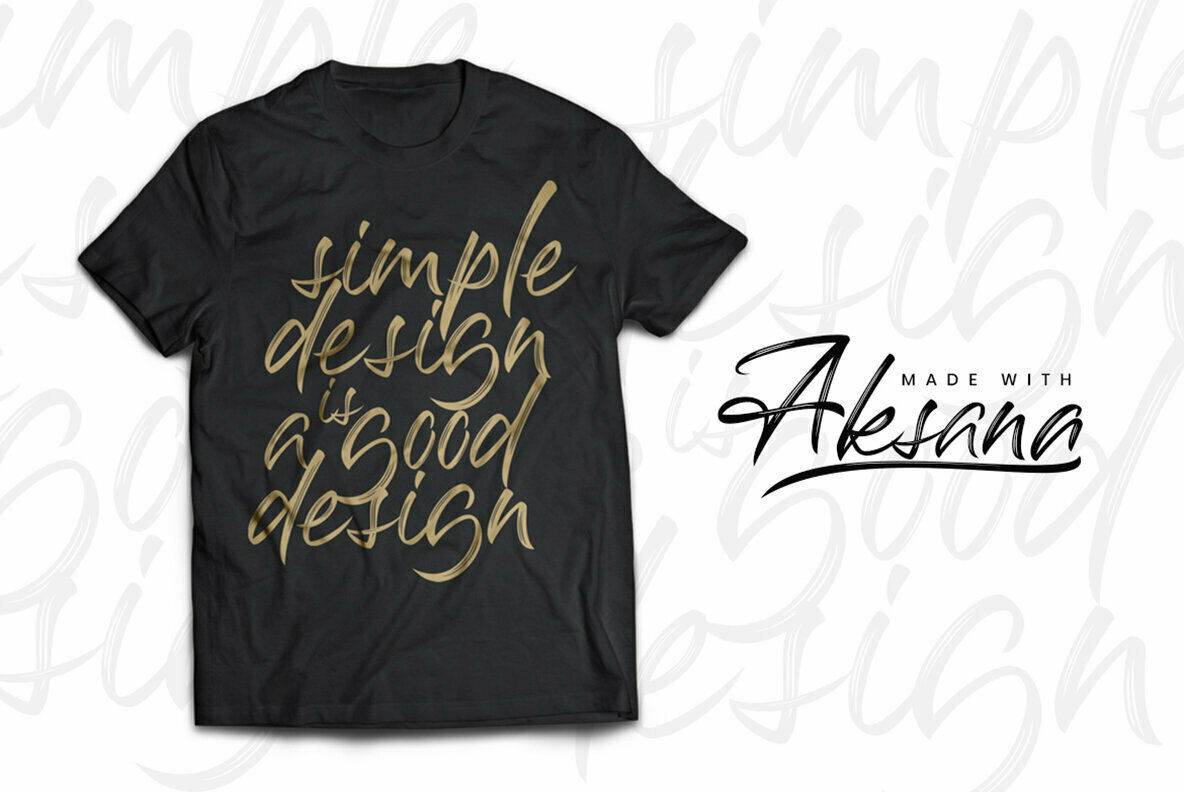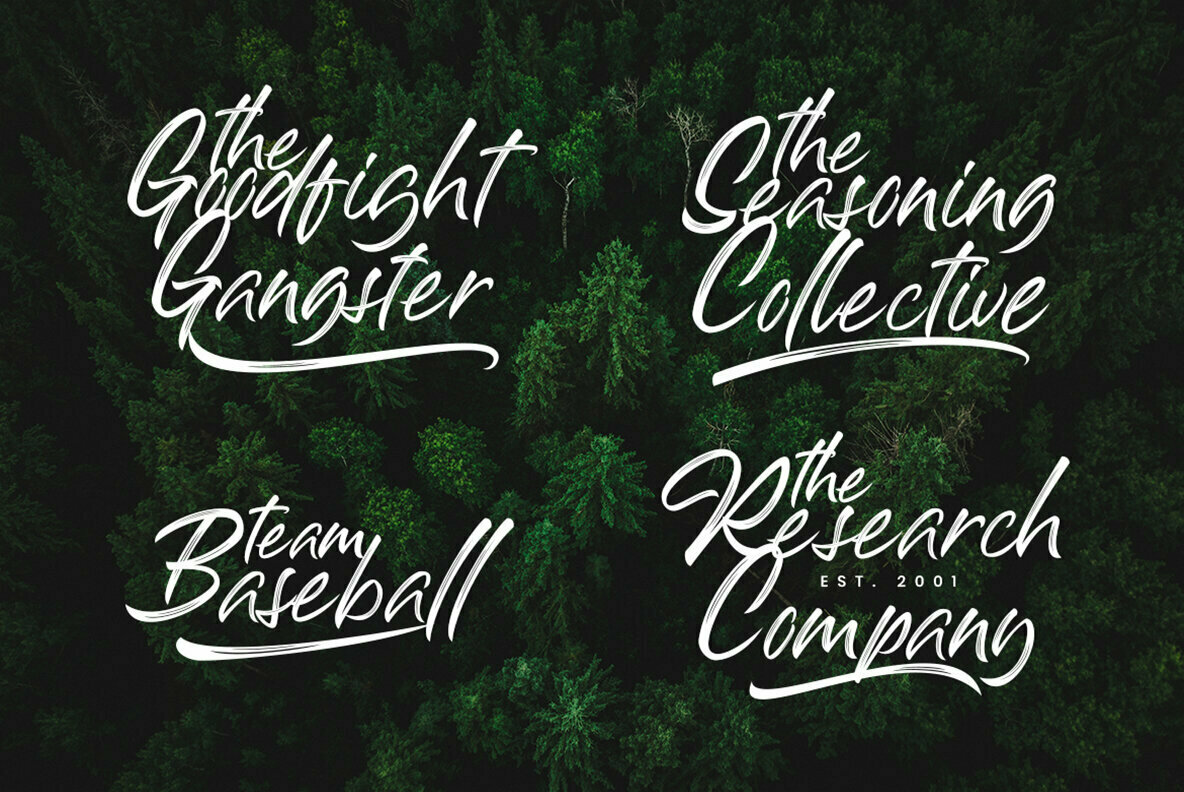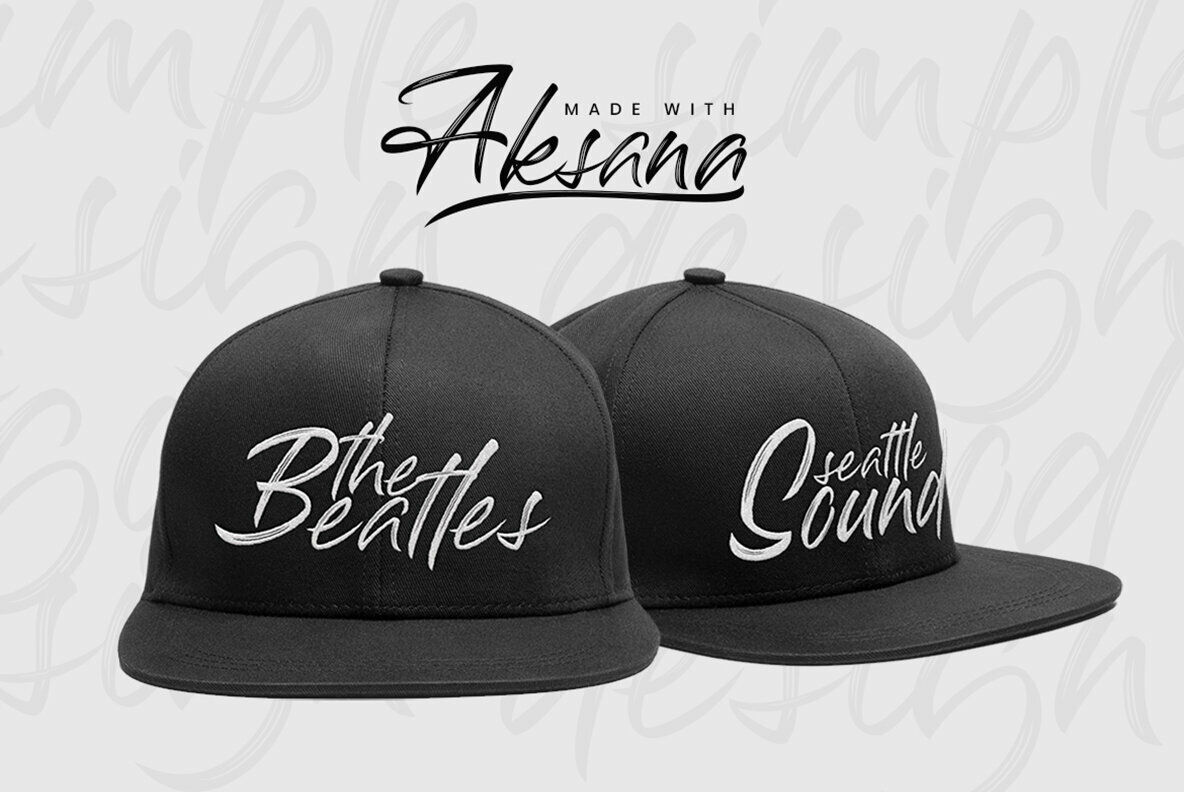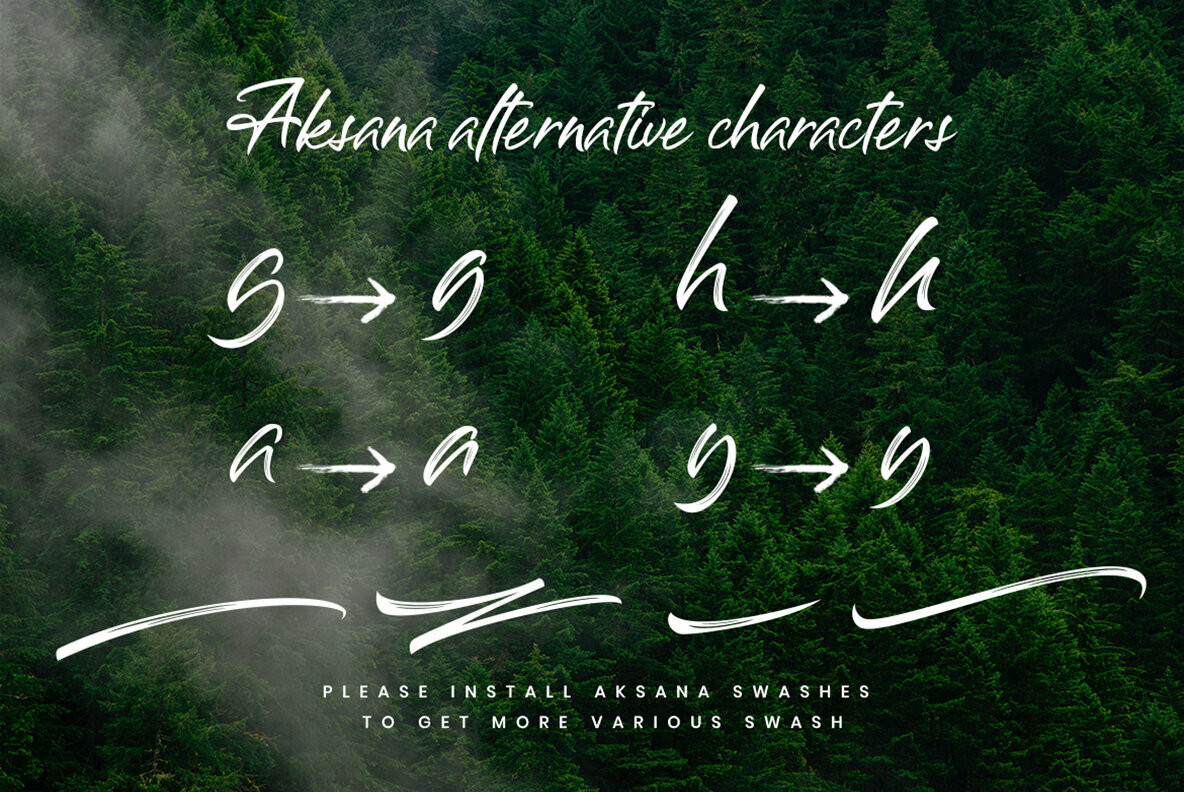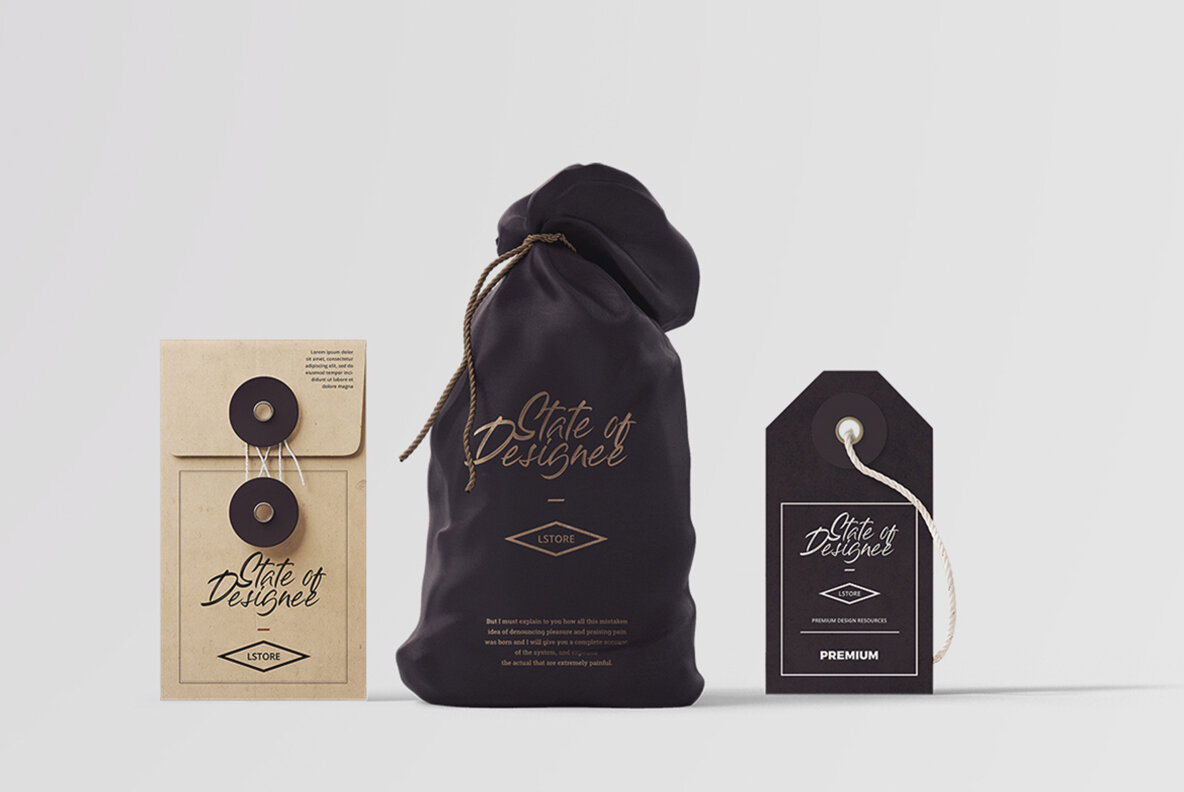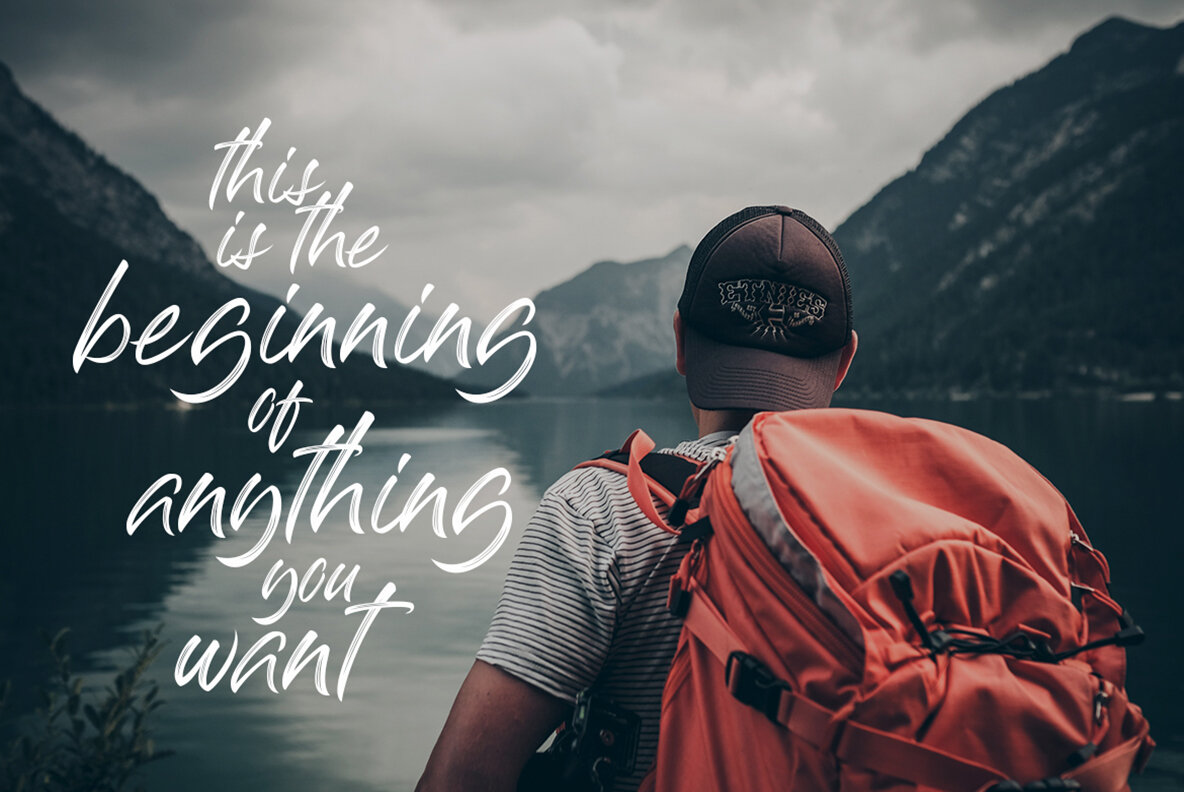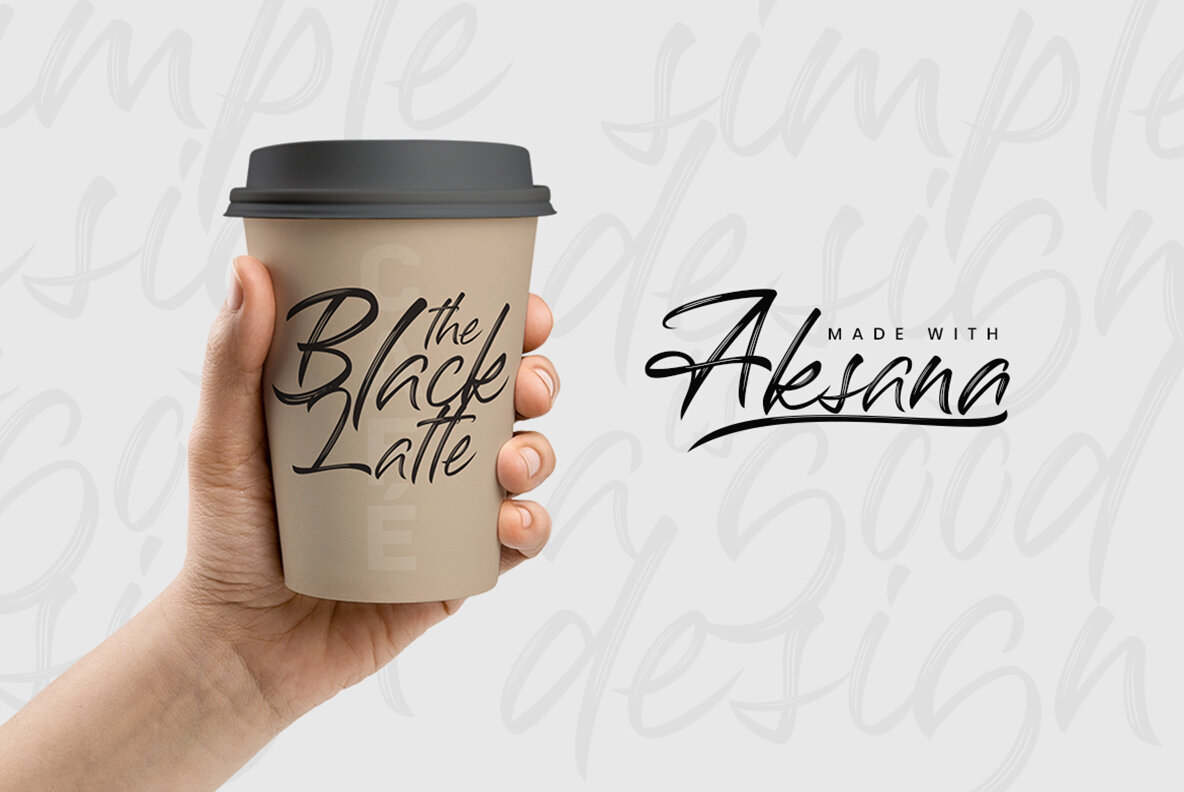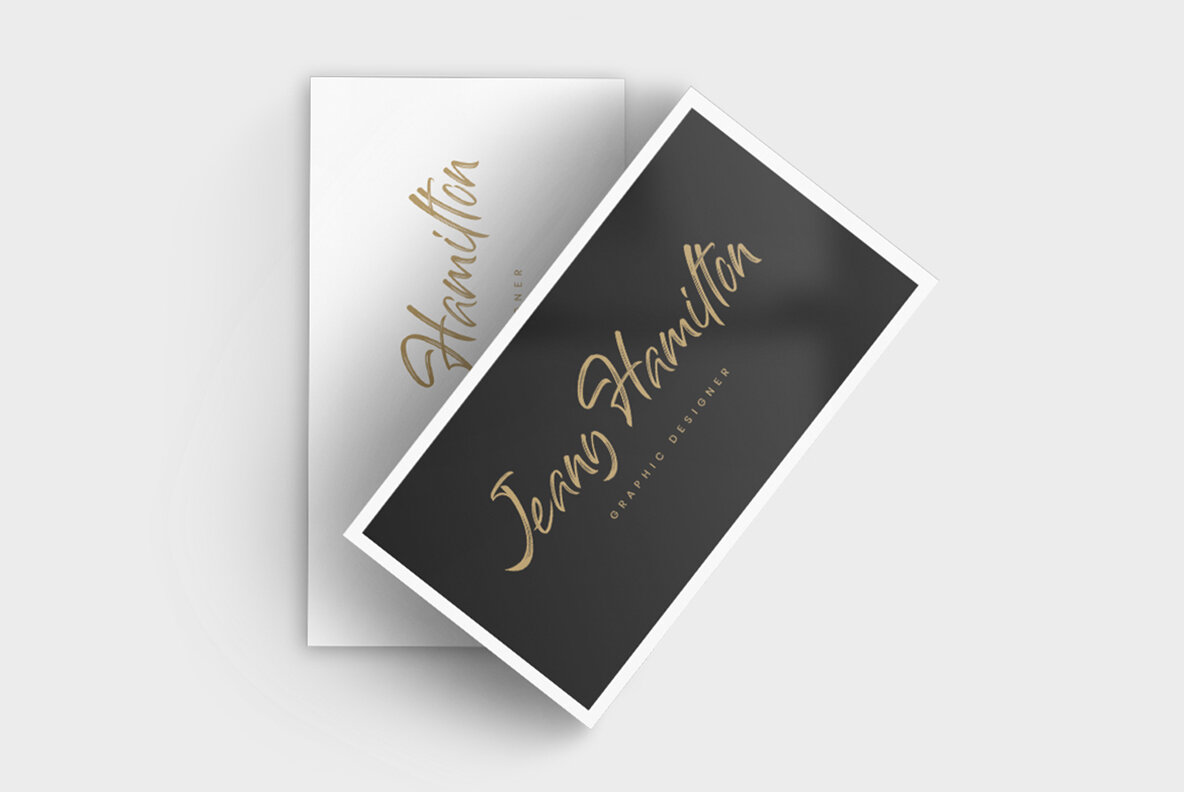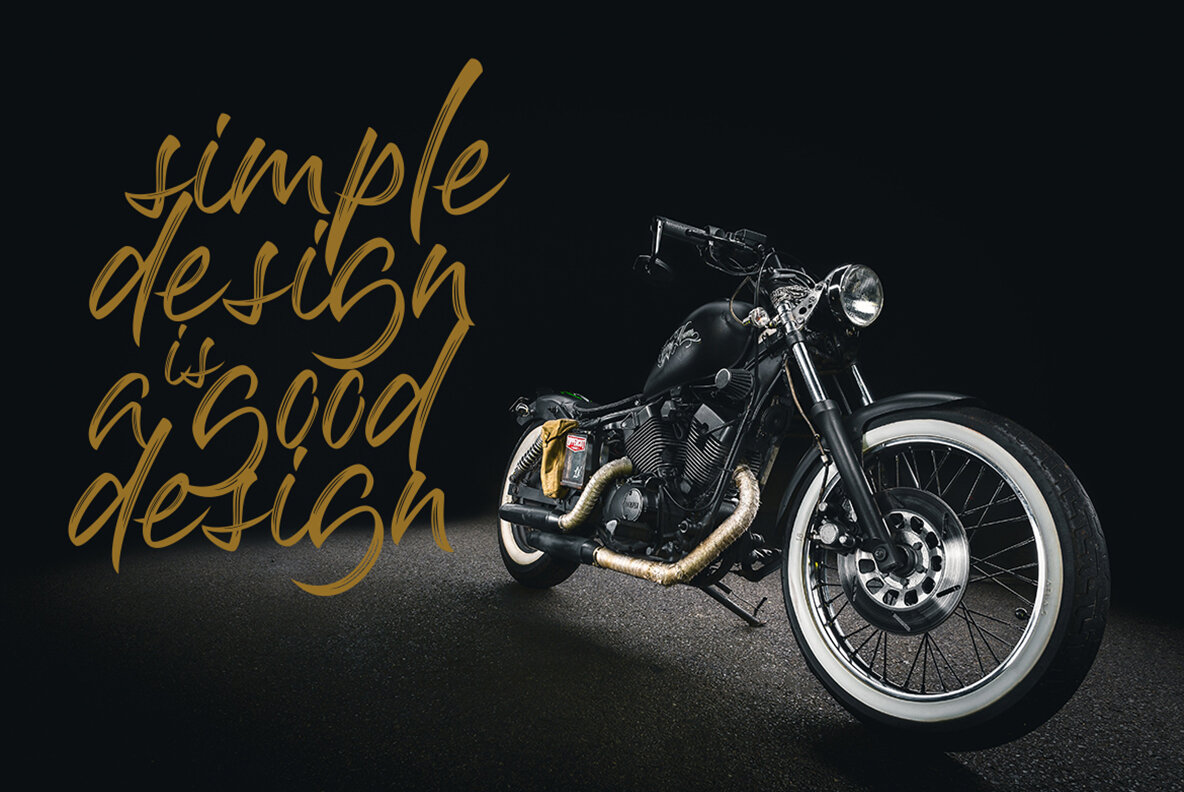
Aksana Font
Aksana brings a fresh perspective to brush script fonts, embodying both modern flair and personal charm. This elegant typeface captures the spontaneity and organic feel of handwriting, making it ideal for branding projects where uniqueness is paramount. Perfect for bringing a sophisticated yet approachable element to your creative endeavors, Aksana adds character and distinction to any project.Aksana: Stylish Handwritten Brush Script